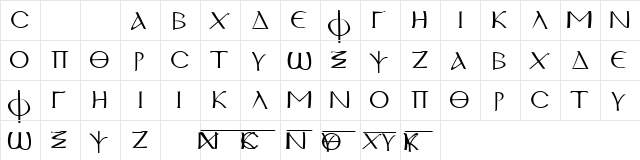
Sinaiticus
Design Context for Sinaiticus Typeface
Sinaiticus takes a measured approach to typography — its balanced proportions and neutral character make it a reliable workhorse for both digital and print work.